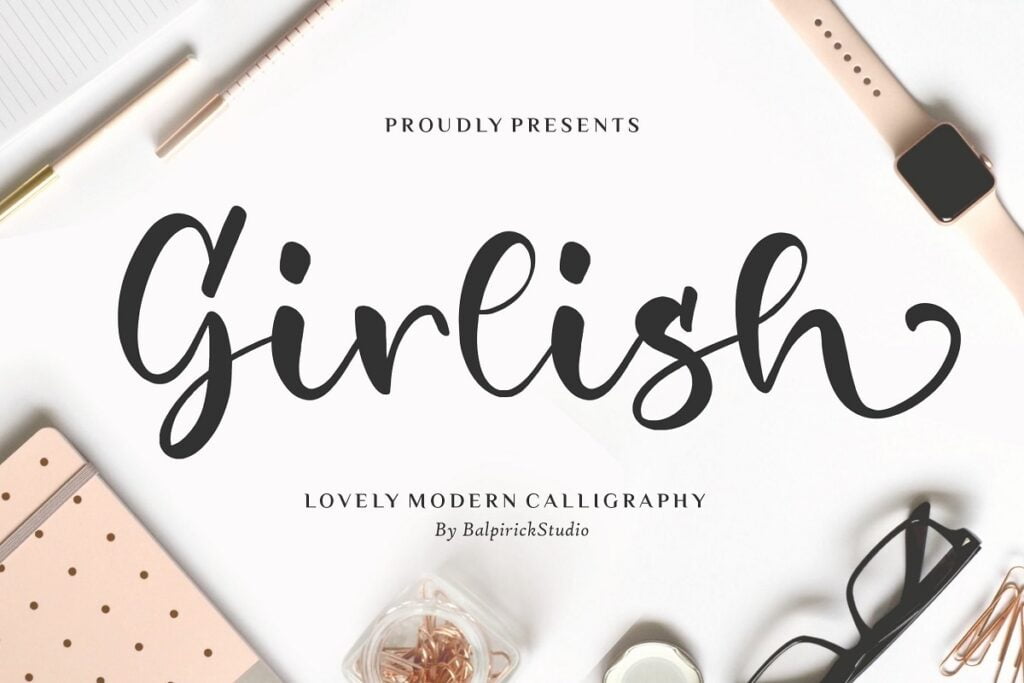
Girlish Font
Introducing the modern Girlish Calligraphy Font is a ravishing script type created by Balpirick. This font is neatly crafted and highly detailed. Whatever the topic, this font will be a wonderful asset to your font library, as it has the potential to enhance any creation.
Girlish Calligraphy Script Font